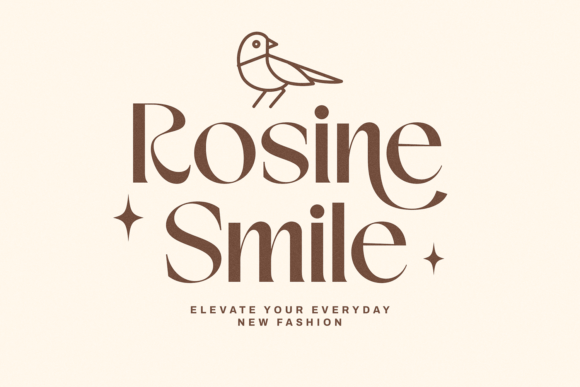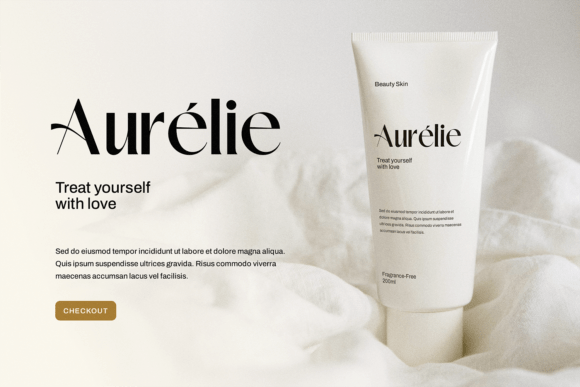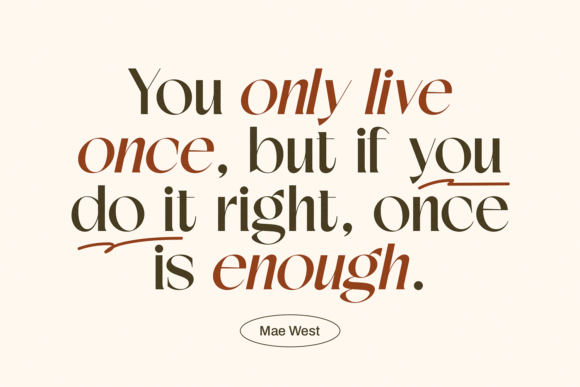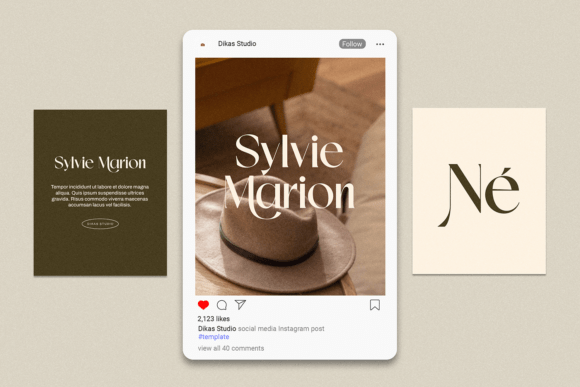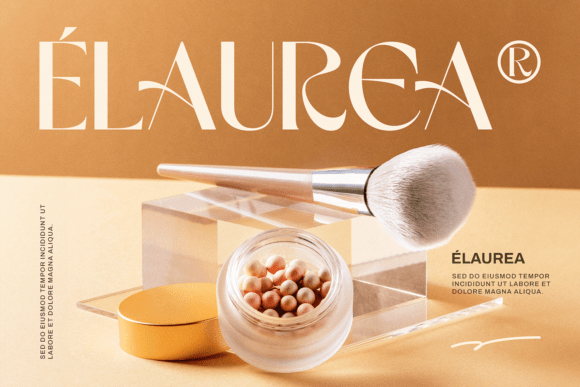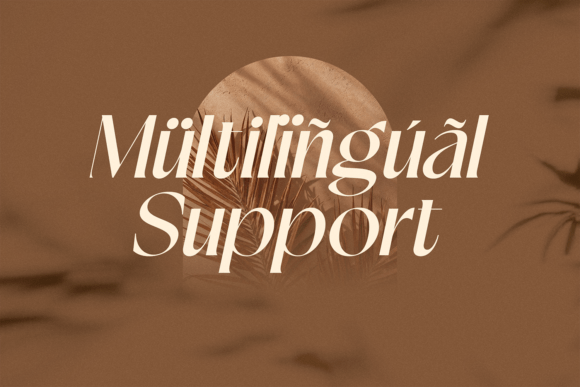
Introduction to Jovelle Regular Font
As designers, we’ve all been there – staring at a blank canvas, trying to bring our creative vision to life. The perfect font can be the difference between a mediocre design and a masterpiece. And that’s exactly what the Jovelle Regular Font offers – a harmonious blend of classic elegance and modern style that’s sure to elevate your creative project.
With its refined letterforms, smooth curves, and high contrast strokes, this elegant serif font is the perfect design resource for luxury branding, editorials, and upscale packaging. Whether you’re working on a high-quality brochure, a free download for a client, or a simple invitation, the Jovelle Regular Font is sure to bring a touch of sophistication and refinement to your work.
As a PUA-encoded font, it offers effortless access to all glyphs, swashes, and alternate characters, making it a valuable tool for designers seeking to add a distinctive aesthetic touch to their work. And with its versatility, it’s perfect for a wide range of creative projects – from wedding invitations to corporate branding.
Key Features of Jovelle Regular Font
- High-quality font suitable for creative projects, providing a unique touch to your designs.
- Part of the Jovelle font family, offering a range of styles to suit various design needs.
- Designed for use at various font sizes, from small to large, making it an excellent choice for headlines, body text, and captions.
Honest Review: Jovelle Regular Font
I recently stumbled upon the Jovelle Regular Font, and I must say, it’s a great addition to my design resources. With its clean and elegant design, it’s perfect for any creative project that requires a touch of sophistication.
Here are some pros and cons that I’ve experienced with the Jovelle Regular Font:
- ✨ Elegant and clean design that’s easy on the eyes
- ⚠️ Limited character set, which might not be suitable for lengthy texts
Overall, I’m impressed with the Jovelle Regular Font. It’s a great addition to any designer’s toolkit, especially for creative projects that require a touch of elegance. However, be aware of its limitations, and use it wisely in your designs.
Tips for Getting the Most Out of the Jovelle Regular Font
To get the most out of the Jovelle Regular Font, use it in combination with other design elements, such as graphics and images, to create a visually appealing design. Experiment with different font sizes and styles to add depth and interest to your design.
Common Use Cases for the Jovelle Regular Font
The Jovelle Regular Font is commonly used in a variety of design projects, including business cards, brochures, and websites. It is also a popular choice for creative projects, such as posters and social media graphics.